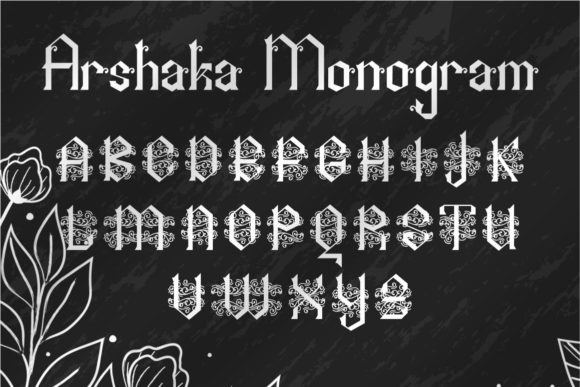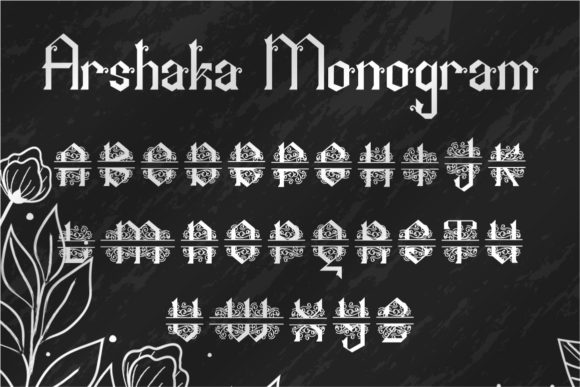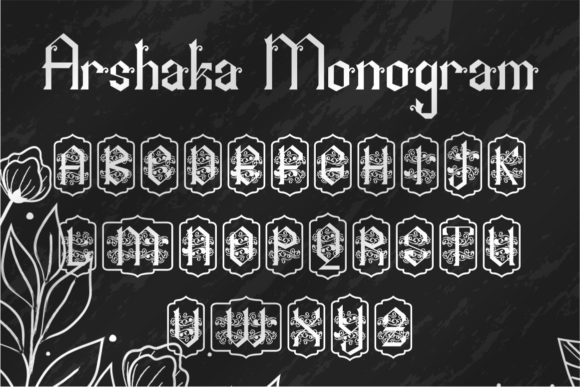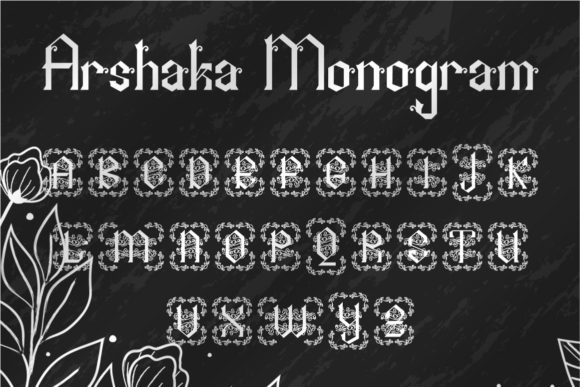
Introducing Arshaka Monogram Font: Elevate Your Designs with Bold Decorative Style
In the world of typography, a well-crafted font can make all the difference in elevating your designs to the next level. For designers and crafters looking to add a touch of elegance and sophistication to their creations, Arshaka Monogram Font is an excellent choice. This bold decorative font is meticulously designed to bring a high level of detail and refinement to any project.
What is Arshaka Monogram Font?
Arshaka Monogram is a bold decorative font that is neatly crafted and highly detailed. Its unique design makes it an excellent addition to any font library, regardless of the topic or theme of your project. Whether you’re working on a logo, branding materials, or creative crafts, Arshaka Monogram Font has the potential to enhance any creation.
Key Features of Arshaka Monogram Font
- Bold and Decorative: Arshaka Monogram Font boasts a bold and decorative style that is sure to make your designs stand out.
- Highly Detailed: The font’s intricate details make it perfect for projects that require a high level of sophistication.
- Versatile: Arshaka Monogram Font can be used on a wide range of projects, from logos and branding materials to creative crafts and more.
- Easily Readable: Despite its decorative nature, the font remains easily readable, making it perfect for use in a variety of contexts.
Benefits of Using Arshaka Monogram Font
Using Arshaka Monogram Font in your designs offers a range of benefits, including:
- Enhanced Visual Appeal: The font’s bold and decorative style is sure to grab attention and add visual interest to your designs.
- Increased Versatility: Arshaka Monogram Font can be used on a wide range of projects, making it a valuable addition to your font library.
- Professional Look and Feel: The font’s highly detailed design gives it a professional look and feel that is sure to impress.
How to Use Arshaka Monogram Font
Using Arshaka Monogram Font in your designs is easy. Here are a few tips to get you started:
- Pair it with Other Fonts: Arshaka Monogram Font pairs well with a variety of other fonts, making it easy to create visually interesting combinations.
- Experiment with Colors: The font’s bold style makes it perfect for use with a range of colors and textures.
- Use it for Headings: Arshaka Monogram Font is perfect for use in headings and titles, where its bold style can really make an impact.
Arshaka Monogram Font is a bold decorative font that is sure to elevate your designs to the next level. With its highly detailed design and versatile style, it’s perfect for use on a wide range of projects. Whether you’re a designer or crafter looking to add a touch of elegance and sophistication to your creations, Arshaka Monogram Font is an excellent choice.